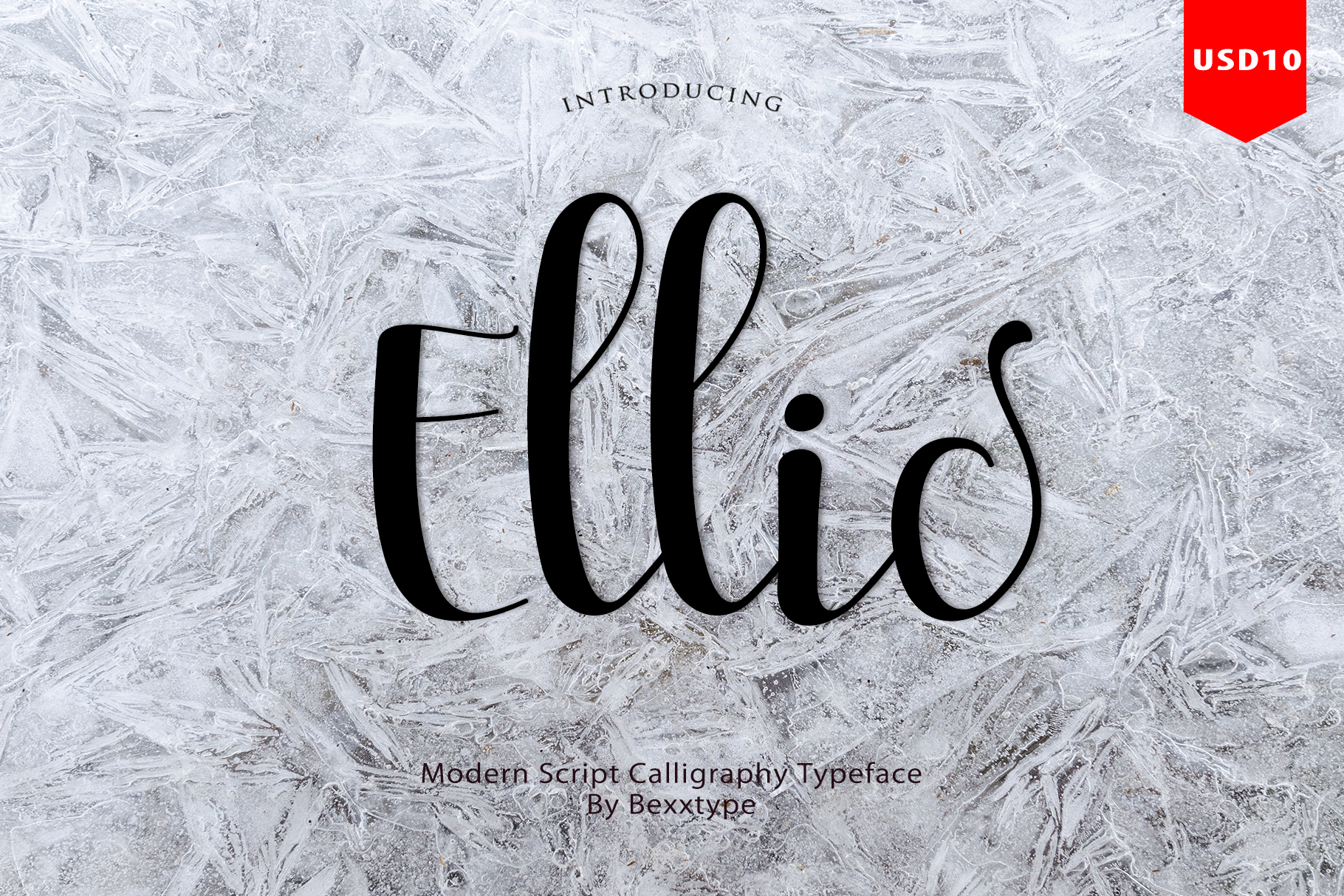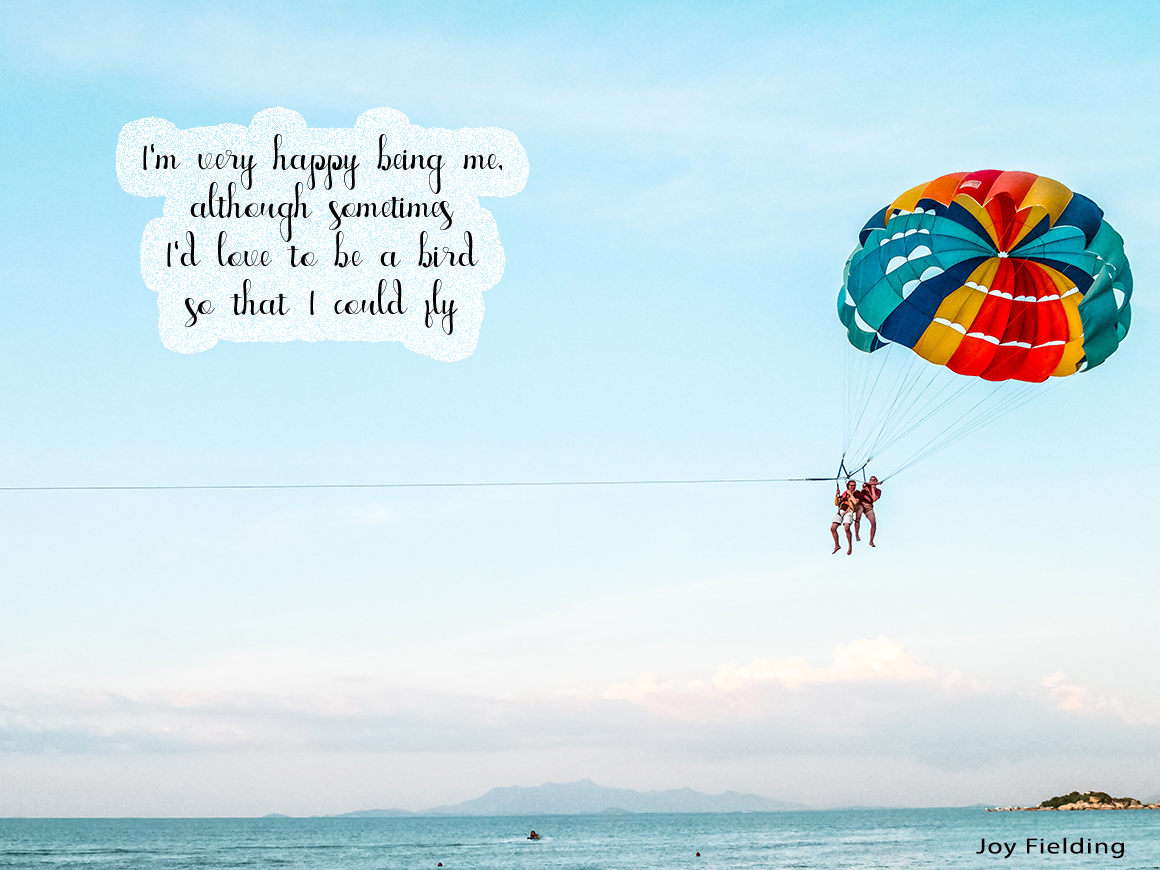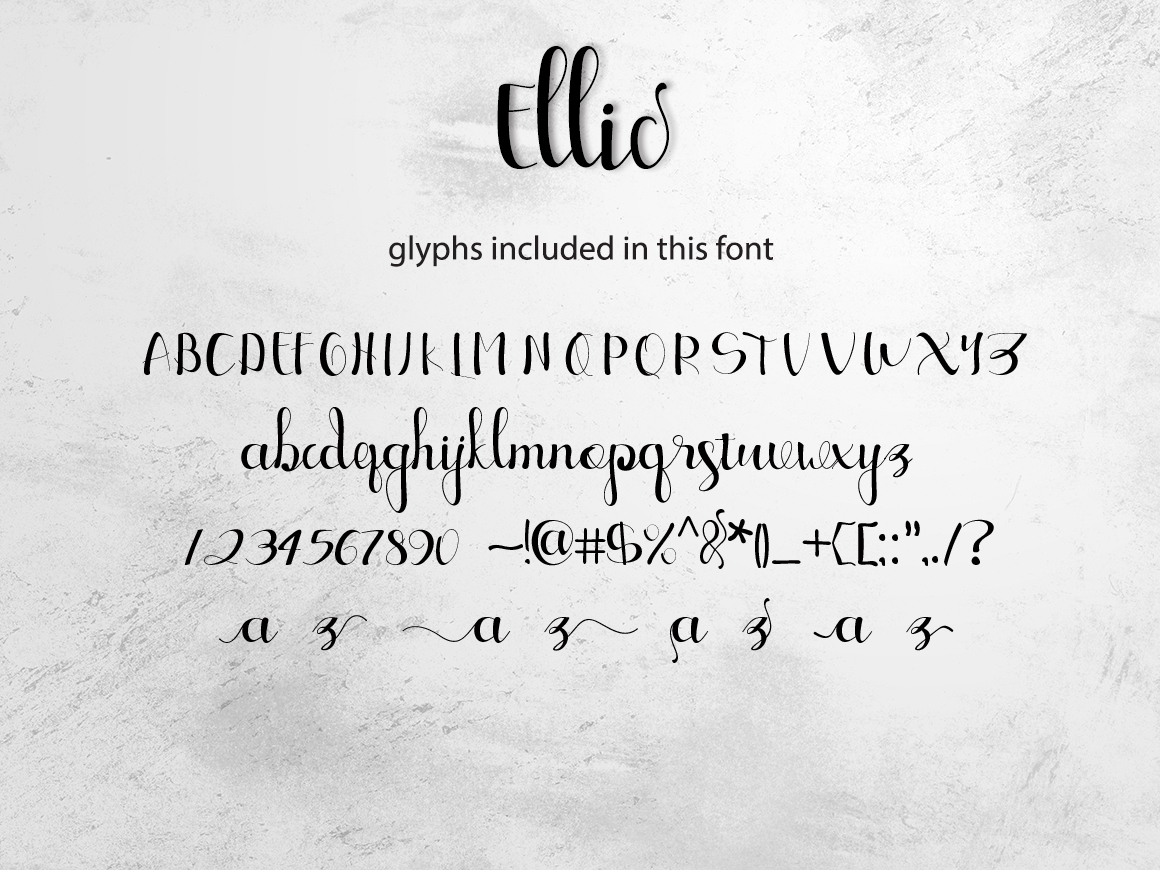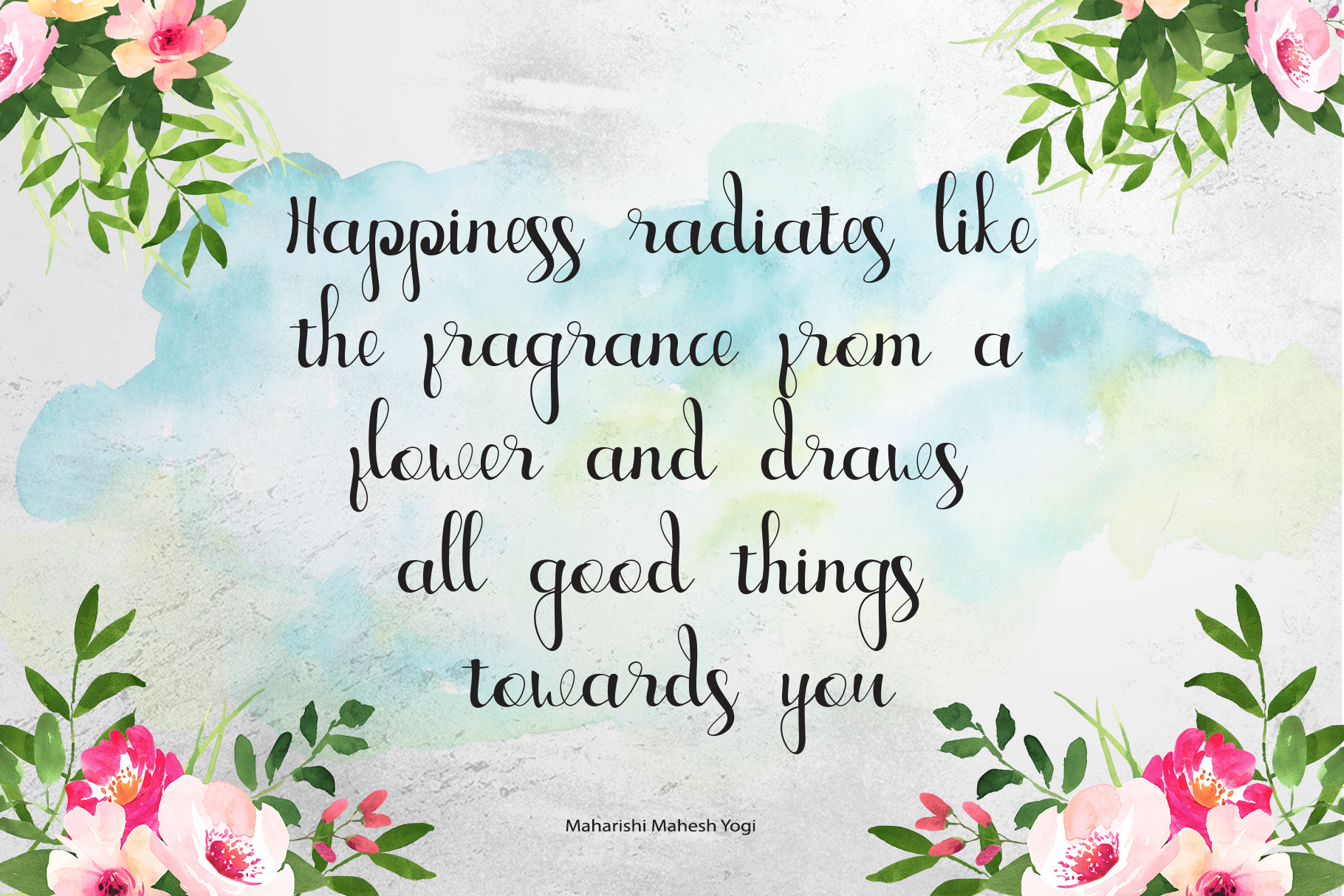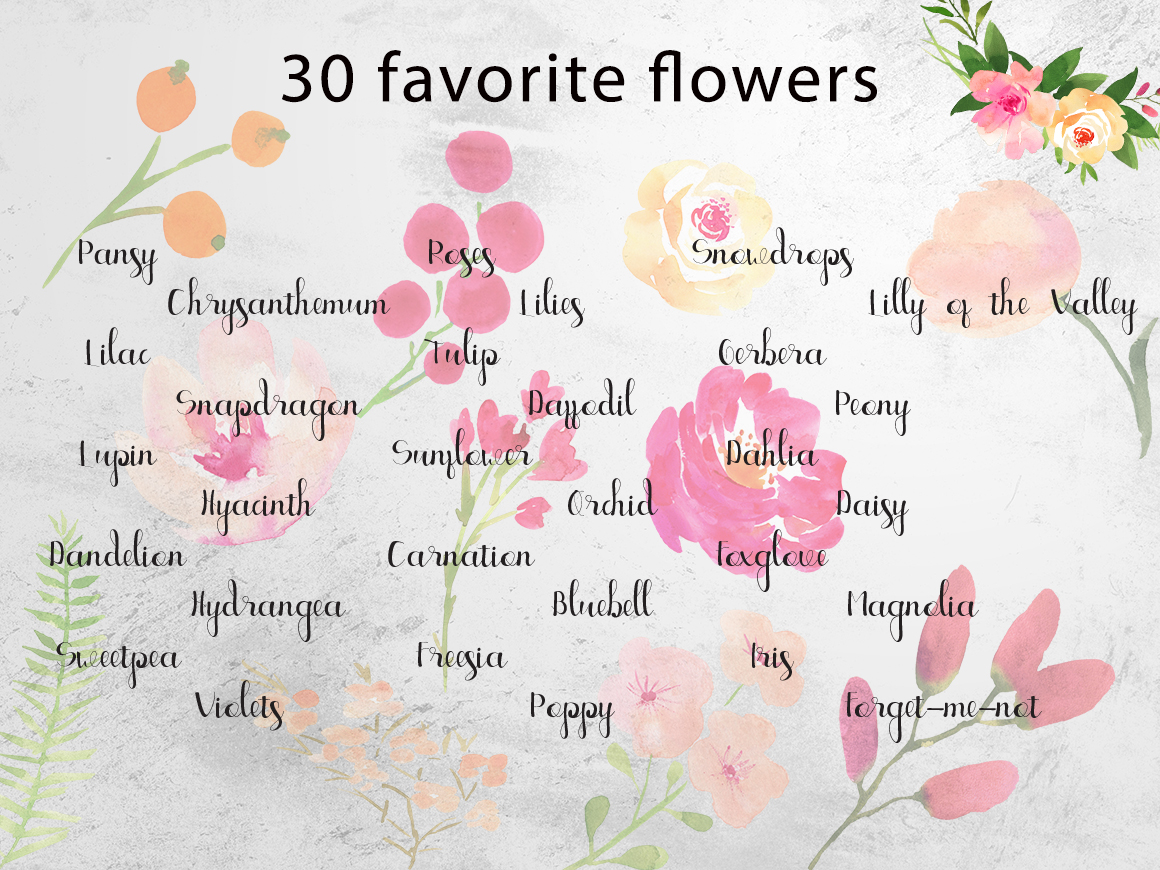
Ellic Font
About Ellic Font
Ellic is a beautiful modern script font, with a careful construction that makes it ideal for displays. This expansive font with over 400 glyphs looks great in headers and for branded projects.